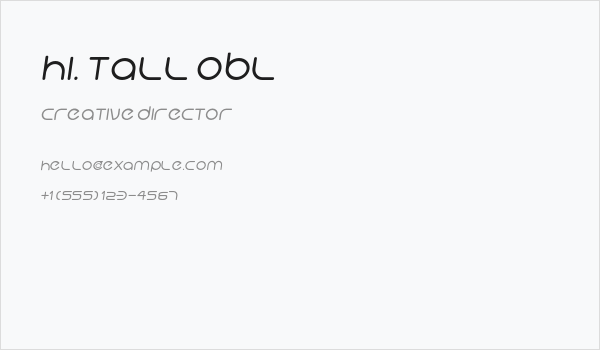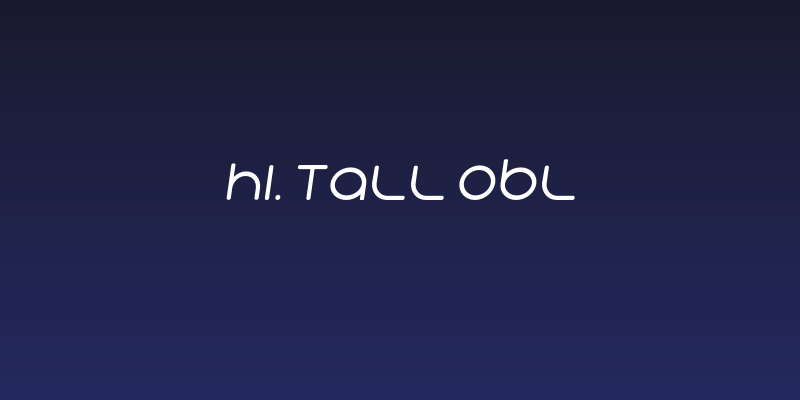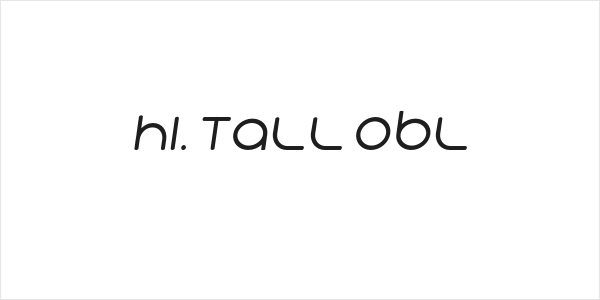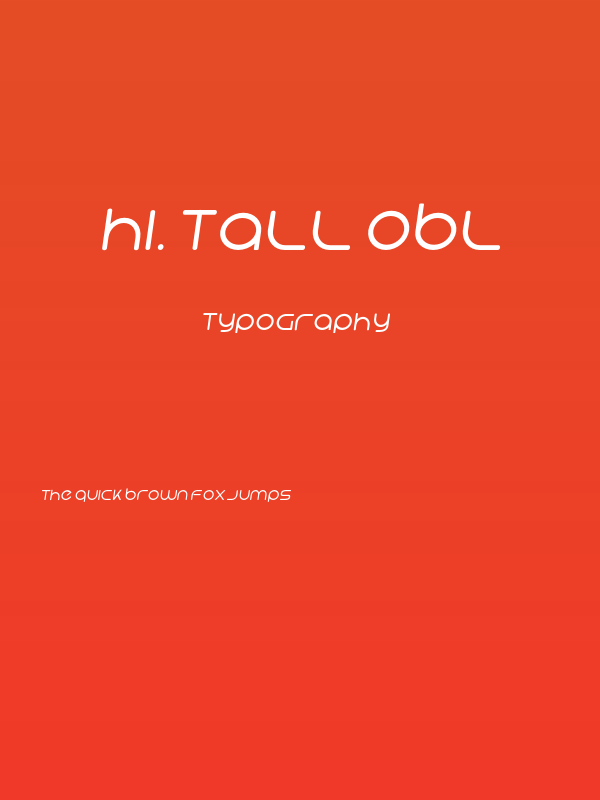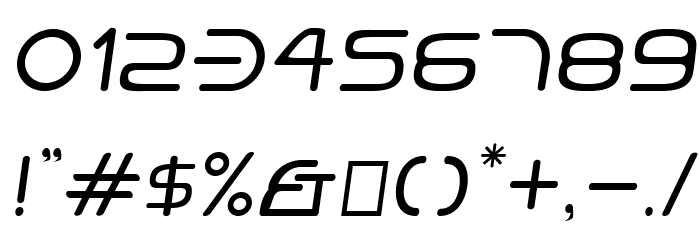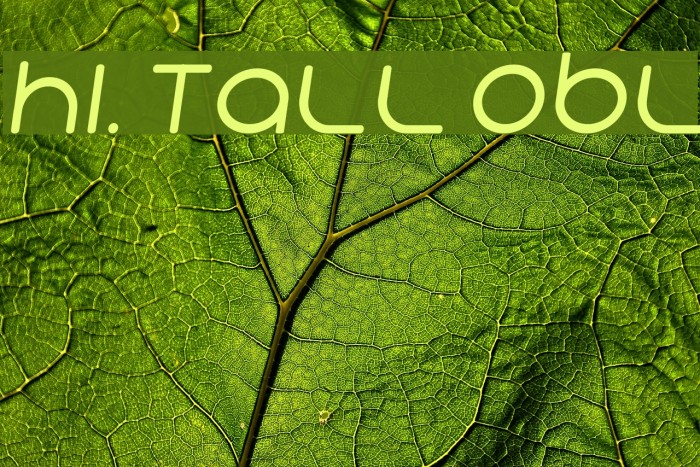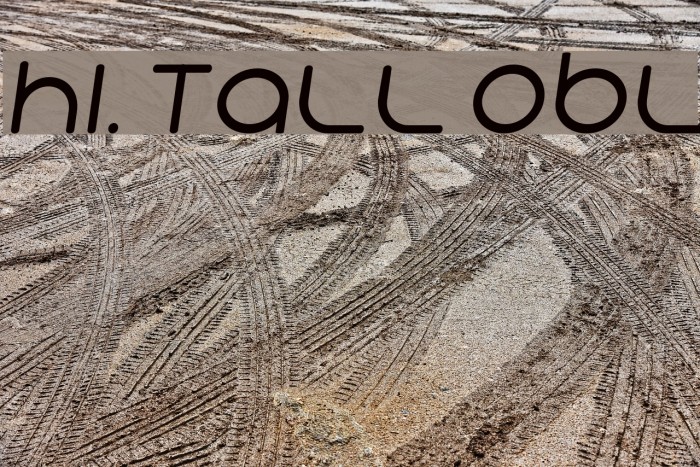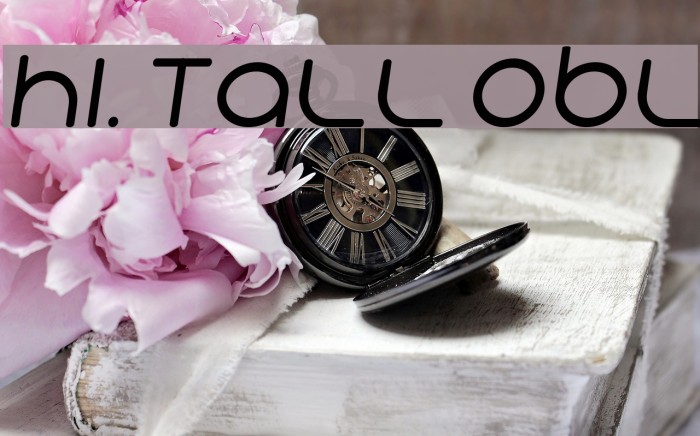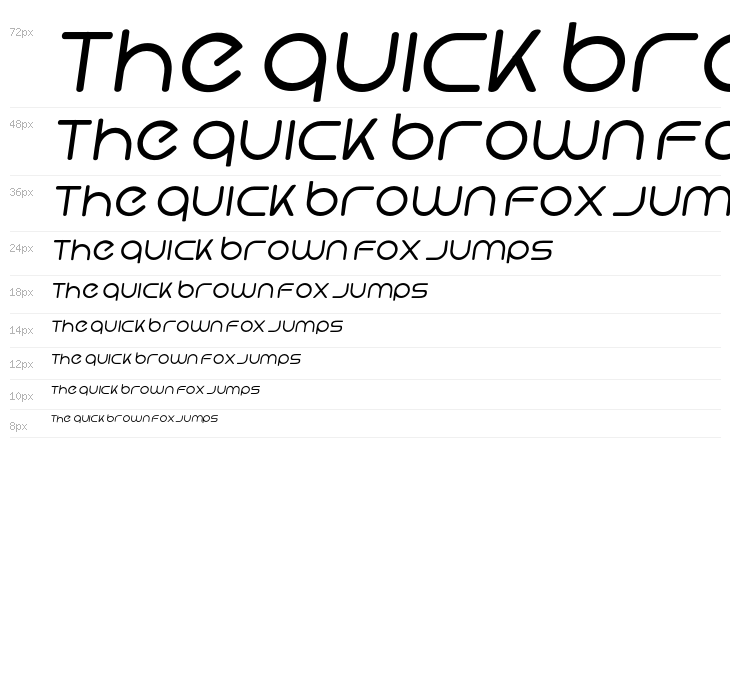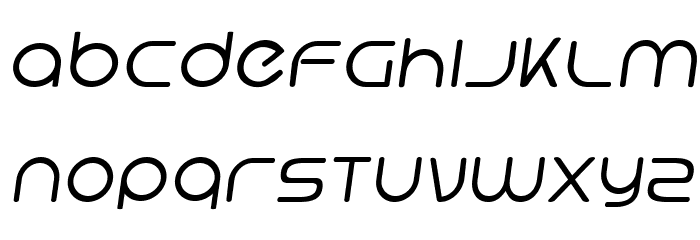
Hi. Tall Obl Font
Hi. Tall Obl Description
This font features a sleek, modern design with a futuristic appeal. The characters are slightly elongated with rounded edges, giving them a smooth and continuous flow. The uppercase and lowercase letters maintain a consistent style, with a uniform stroke width that adds to the clean aesthetic. The numbers and special characters are designed to match the overall look, ensuring a cohesive appearance across all text. The font's unique style makes it stand out, while still being highly legible.
| Proposed Projects | Ideal for tech branding, sci-fi themed projects, modern advertising, and digital interfaces. |